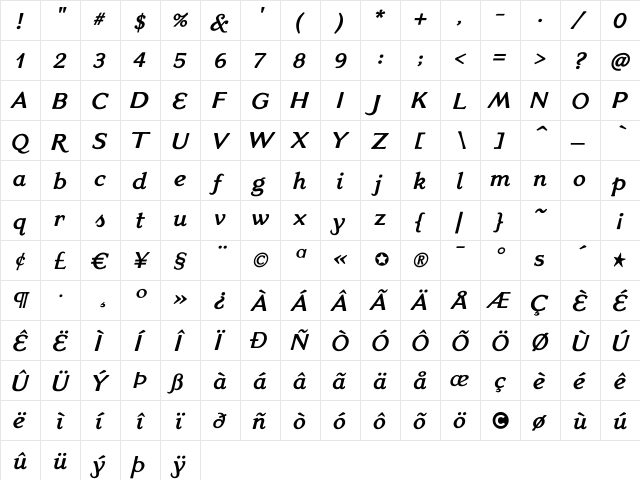
VenisBold Italic Regular
Design Context for VenisBold Italic Typeface
VenisBold Italic offers clean, dependable letterforms without strong stylistic allegiance, making it a practical choice for designers who need flexibility. Its italic angle brings a sense of urgency and motion to the letterforms. Its bold stroke weight gives it real presence on the page.
Pro Tip: Use VenisBold Italic for emphasis, pull quotes, and subheadings where its slanted energy can add rhythm to the layout.